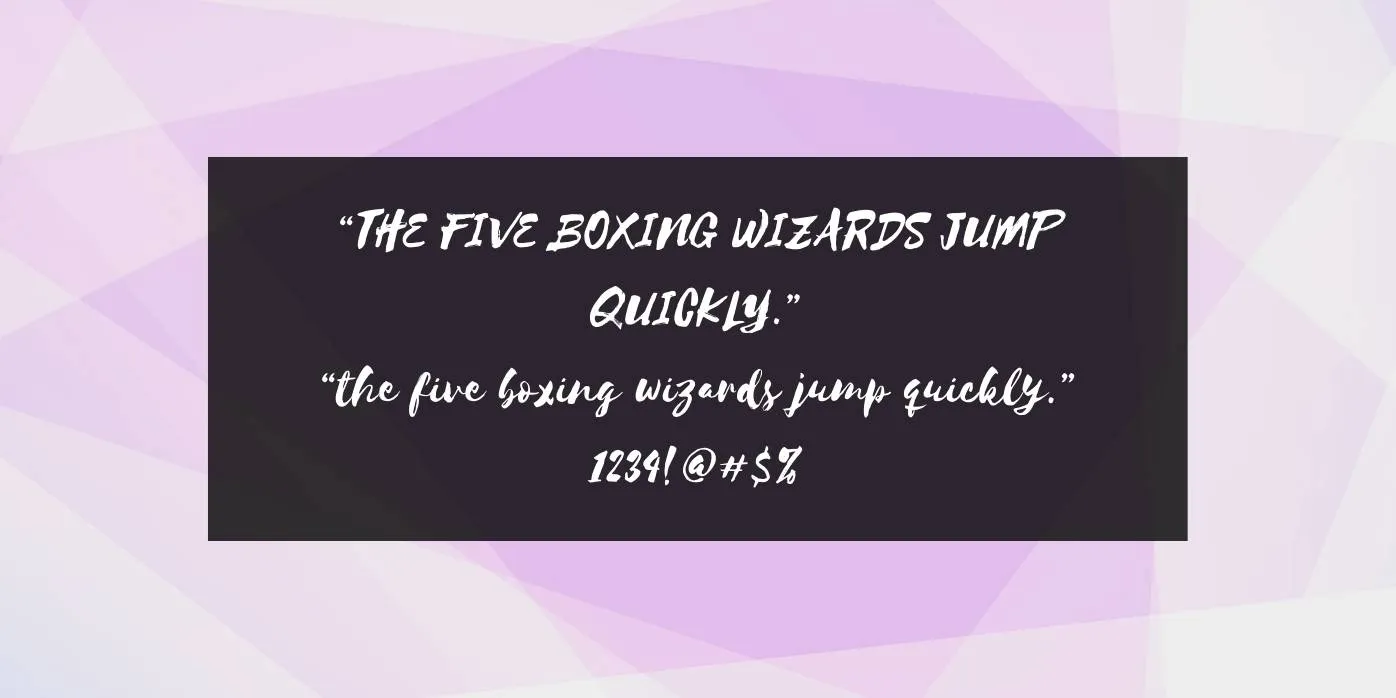
Selima Font
Today, we are consulting on a famous typeface known as Selima Font. This family belongs to the brush font family. This typeface was designed and published by Jroh Creative. Selima Typeface has available in only one weight.
This gorgeous font family was inspired by classic posters and signage from the early 20th century. The brush strokes give the letters a natural and organic look. The typeface is perfect for headlines, posters, and other displays. You can use edo sz font which has the same style and characters as this one.
Selima Typeface is best used for headlines and other display purposes. The brush strokes give the letters a natural and organic look that is perfect for vintage or retro designs. To create contrast in your design, pair Selima Font with another brush typeface.